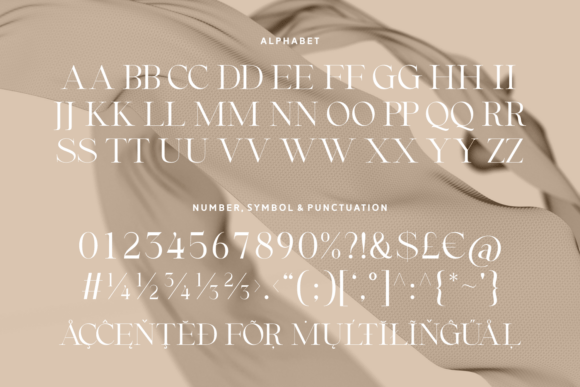
Introduction to Quiet Power Font
Have you ever stared at a blank canvas, searching for the perfect font to bring your creative project to life? I’m sure many designers can relate to the frustration of scrolling through endless options, only to settle for something that doesn’t quite capture the essence of their vision. But what if I told you that there’s a font that can effortlessly elevate your design, without shouting or overpowering the message? Enter the enigmatic Quiet Power Font, a sophisticated serif typeface that embodies understated elegance.
With its refined curves, high contrast strokes, and modern aesthetic, the Quiet Power Font is the perfect design resource for those who value timeless style with a contemporary voice. Whether you’re working on a luxury branding project, a fashion editorial, or a wedding invitation, this versatile font is sure to make a statement without overpowering the background – even with a transparent background.
Key Features of Quiet Power Font
- High-Quality Design Resource: Quiet Power Font is a premium font designed for creative projects, offering a unique and elegant look.
- Unique Characteristics: The font’s distinctive design and elegant lines make it an excellent choice for creating professional-looking designs, from business cards to brochures.
Honest Review: Quiet Power Font
Here’s what I like about the Quiet Power Font:
- ✨ Clean and modern design: The font has a sleek and professional look that can add a touch of sophistication to any design.
- ✨ Versatile: It’s suitable for a wide range of creative projects, from branding and marketing materials to digital products and more.
- ⚠️ Limited character set: The font only includes a limited set of characters, which may not be suitable for complex designs or those that require a wide range of special characters.
- ⚠️ Not suitable for small text: The font may not be legible at very small sizes, which can be a limitation for designs that require a lot of text.
Overall, I’m impressed with the Quiet Power Font and would recommend it to designers who are looking for a high-quality, free design resource for their creative projects.
The Quiet Power Font is a versatile design resource ideal for creative projects. Its high quality and transparent background make it a perfect addition to any design.
Tips for Getting the Most Out of Quiet Power Font
For the best results, use the Quiet Power Font in conjunction with other high-quality design resources. Experiment with different font sizes, colors, and styles to create a unique design.
The Quiet Power Font is suitable for a variety of creative projects, including logos, brochures, and social media graphics. Its high-quality design makes it a great addition to any design resource.
Aleo compares to Quiet Power Font in its sleek and refined appearance, but it has a more subtle and understated feel. It is ideal for designers seeking a design resource that exudes quiet confidence without overpowering the content.